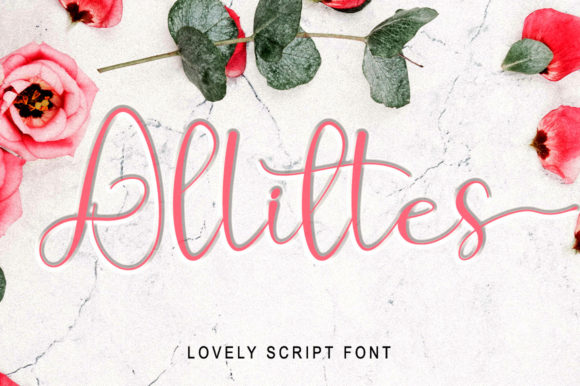
About Allittes Font
Allittes is a stylish and modern calligraphy font featuring a magical style. This font is great for album covers, labels, websites, wedding designs and all aspects that require a high-quality style. Allittes is PUA encoded which means you can access all of the glyphs and swashes with ease!Â